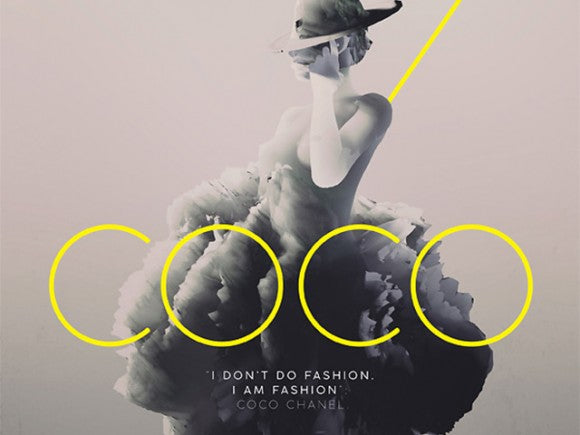
Free Coco Gothic font
Download and enjoy this free coco gothic font. Cool typeface to showcase your designs in a modern way. Freebies Bug has created this amazing and beautiful typeface. This is absolutely beautiful font so you can easily make world-class designs.